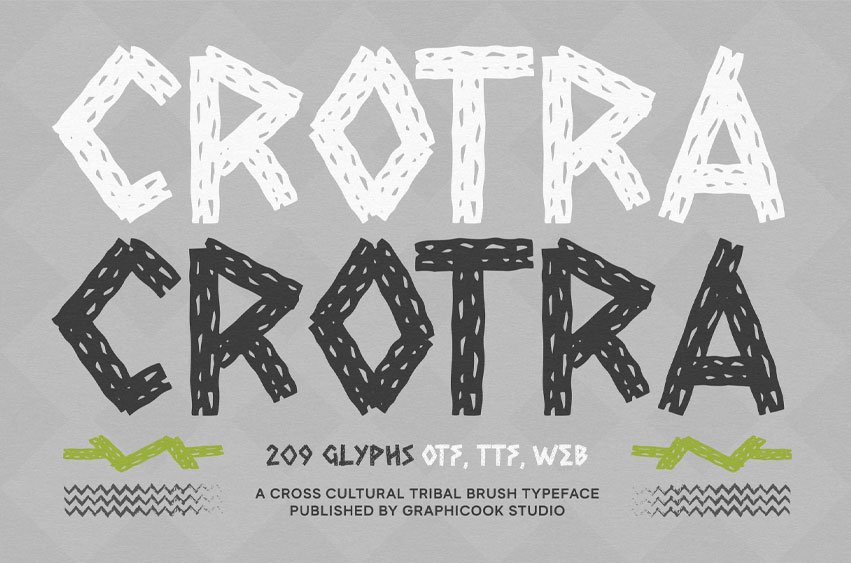
Crotra Font
Crotra Font is a tribal-style display font with a strong artistic character, inspired by ethnic carvings, traditional tribal symbols, and rough brushstroke textures. It’s perfect for posters, album covers, logos, packaging, festival artwork, and creative editorials that demand a bold and distinctive look.
It is perfect for headlines, logotypes, magazines, packaging, quotes, movies, games, cover albums, book covers, and flyers, it’s a perfect solution for creating eye-catching designs that stand out in any context.